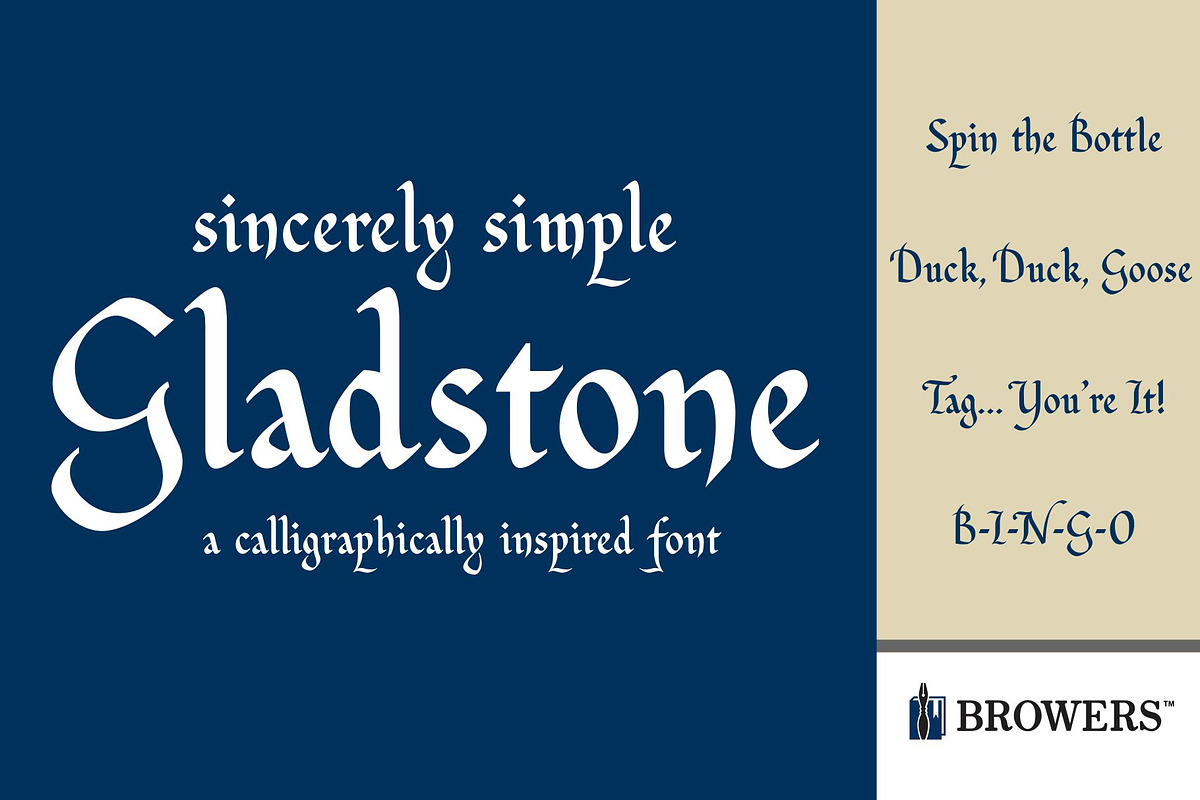
Gladstone Font
Gladstone is a charming script typeface inspired by pen lettering techniques.
Why Gladstone Font is worth a look
Gladstone Font by Michael Browers fits naturally into Branding, posters, packaging, typography.